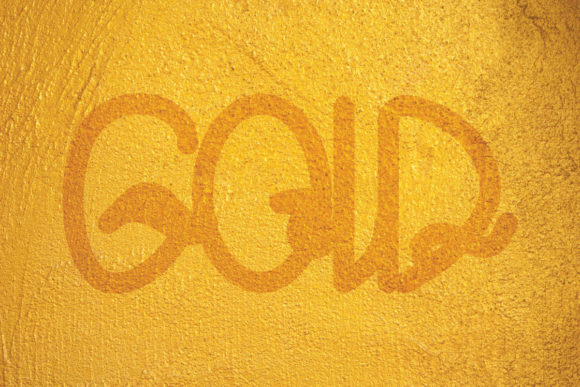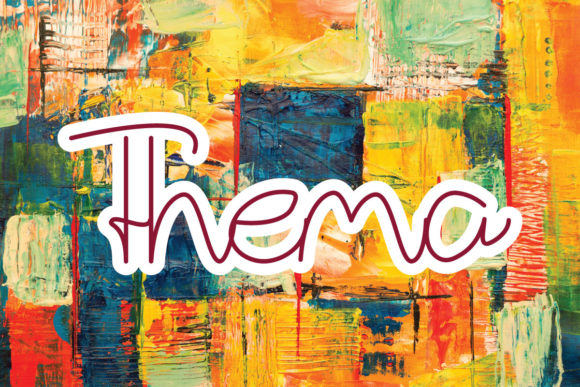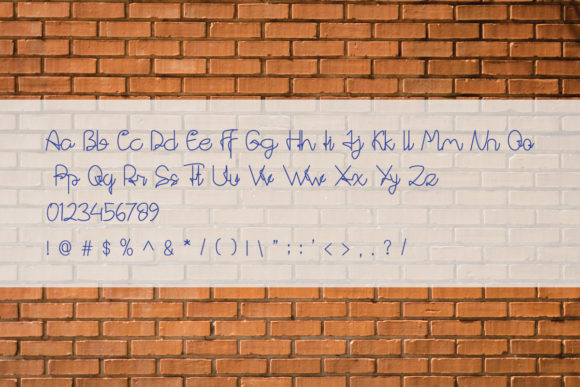
Introducing Green Font: The Quirky Handwritten Font for Creative Minds
Are you tired of using the same old boring fonts for your creative projects? Look no further! Green Font is here to add a touch of whimsy and playfulness to your designs. This cute and quirky handwritten font is perfect for crafters, designers, and anyone looking to add a dash of personality to their work.
The Charm of Green Font
Green Font boasts a sloppy, laid-back style that’s reminiscent of handwritten notes from a friend. Its irregularities and imperfections give it a charming, homemade feel that’s sure to capture the hearts of your audience. Whether you’re working on a children’s book, a craft project, or a social media graphic, Green Font is the perfect choice for adding a touch of whimsy and fun.
Key Features of Green Font
- Handwritten style: Green Font is a true handwritten font, crafted to mimic the look and feel of real handwriting.
- Sloppy and quirky: With its irregularities and imperfections, Green Font has a delightfully sloppy style that’s sure to stand out.
- Childish and playful: This font is perfect for projects that require a playful, youthful vibe.
- Easy to read: Despite its quirky style, Green Font is surprisingly easy to read, making it perfect for use in a variety of contexts.
Use Cases for Green Font
Green Font is an incredibly versatile font that can be used in a wide range of creative projects. Here are just a few ideas to get you started:
- Children’s books and educational materials: Green Font is perfect for kids’ books, activity sheets, and educational materials that require a playful, engaging tone.
- Crafting and DIY projects: Add a personal touch to your crafting and DIY projects with Green Font, perfect for labels, signs, and other decorative elements.
- Social media graphics: Use Green Font to add a touch of personality to your social media graphics, from Facebook posts to Instagram stories.
- Invitations and party decor: Green Font is a great choice for invitations, party decor, and other celebratory materials that require a fun, festive vibe.
Tips for Using Green Font
To get the most out of Green Font, here are a few tips to keep in mind:
- Use it sparingly: Green Font is best used in moderation, as its quirky style can be overwhelming in large doses.
- Pair it with contrasting fonts: Combine Green Font with a more traditional font to create visual interest and add depth to your design.
- Experiment with colors: Green Font looks great in a variety of colors, so don’t be afraid to experiment and find the perfect hue for your project.
Green Font is a unique and charming handwritten font that’s perfect for crafters, designers, and anyone looking to add a touch of personality to their creative projects. With its sloppy style and playful vibe, Green Font is sure to capture the hearts of your audience and set your designs apart from the crowd. So why not give it a try and see the difference it can make?